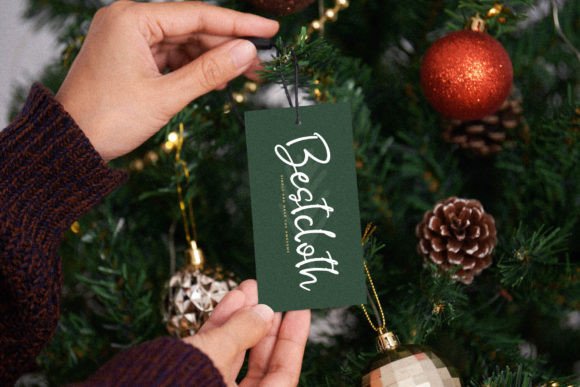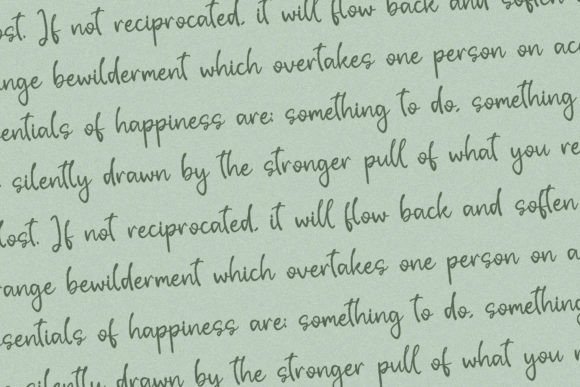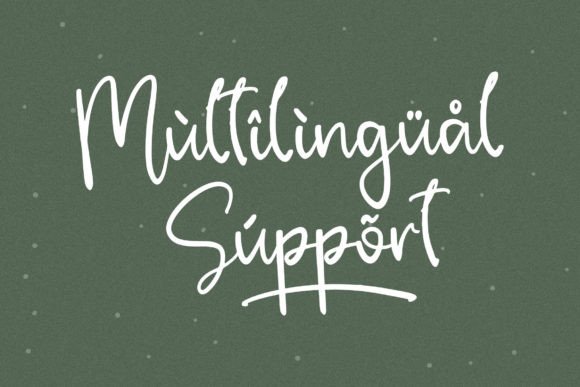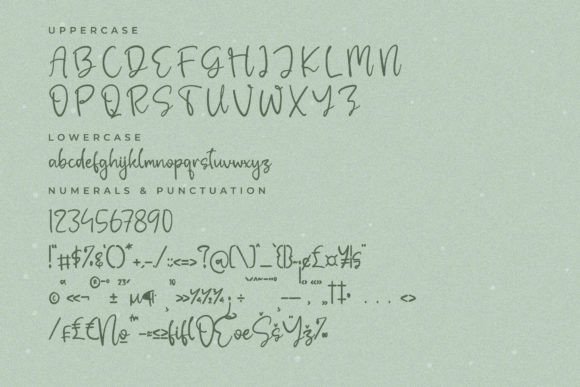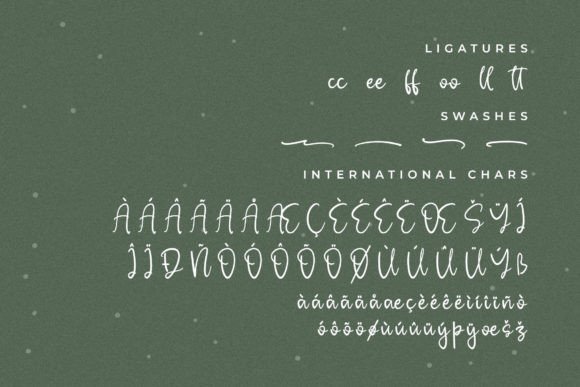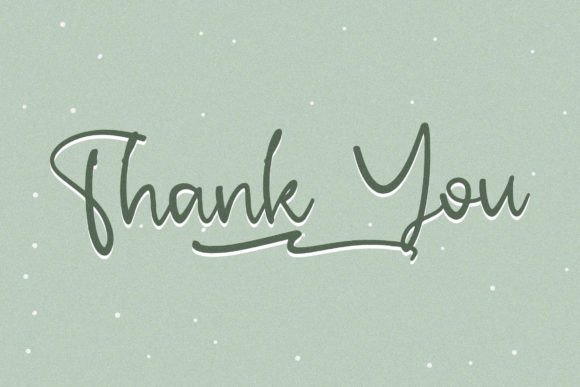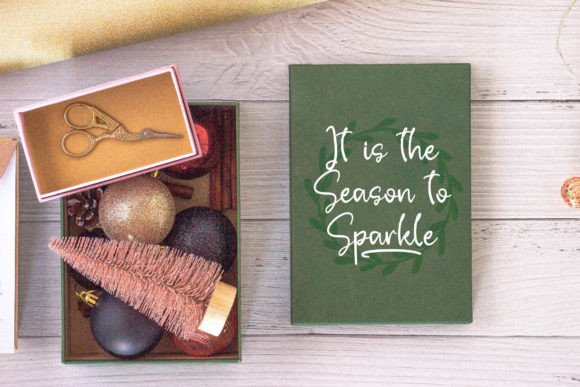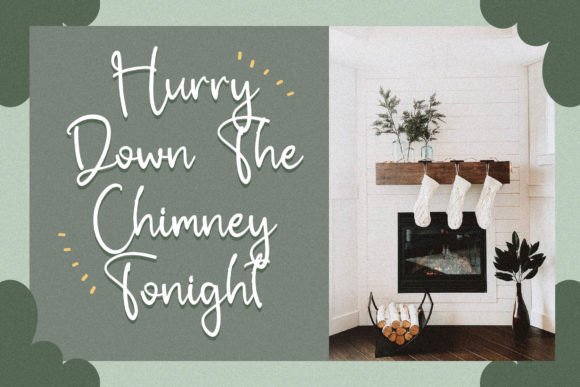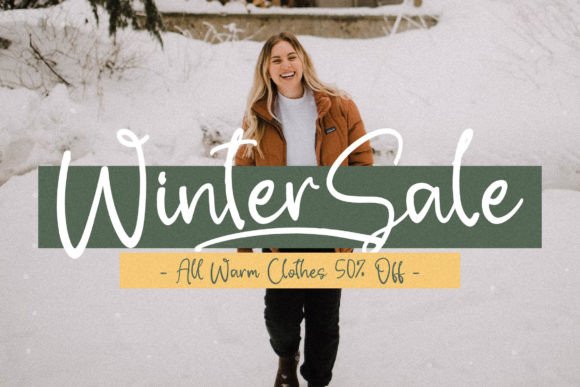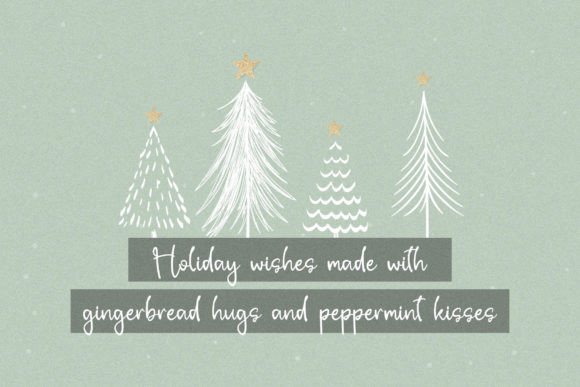
Whitfield Font
About Whitfield Font
The Whitfield Font Download is an elegant handwritten script designed to bring style, personality, and sophistication to your creative projects. With its graceful strokes and fluid curves, Whitfield captures the natural beauty of handwriting while maintaining professional polish.
Created with versatility in mind, this font adapts seamlessly to a wide range of design needs. Whether you’re working on branding, invitations, product packaging, apparel, or event promotions, Whitfield adds a touch of handwritten charm that elevates your work. Its timeless script design ensures your typography always feels stylish, approachable, and memorable.
Features of Whitfield Font
• Elegant handwritten script style with smooth, flowing strokes
• Full character set including uppercase, lowercase, numerals, and punctuation
• Balanced letterforms for consistent and professional results
• High readability across print and digital applications
• Versatile design that fits both casual and formal projects
Best Uses for Whitfield Font
• Logos and branding – Build timeless brand identities with a handwritten touch
• Wedding invitations and stationery – Add elegance and charm to your big day
• Product packaging and labels – Perfect for handmade goods, cosmetics, and lifestyle products
• Apparel and merchandise – Stylish typography for t-shirts, tote bags, and accessories
• Posters and flyers – Eye-catching headlines for events and promotions
• Social media graphics – Enhance Instagram posts, Pinterest pins, or blog visuals
• Book covers and magazines – Elegant titles for creative publications
• Photography watermarks – Professional handwritten accents for creatives
Why Choose Whitfield Font
The Whitfield Font Download stands out for its balance of elegance and usability. Unlike fonts that are overly ornate or too simplistic, Whitfield provides just the right mix of style and clarity. Its flowing script makes it versatile for professional branding while retaining the warmth of personal handwriting.
Designers love Whitfield for its timeless charm and adaptability. From formal wedding stationery to modern fashion branding, it brings sophistication to every context. Its graceful strokes ensure that your designs remain elegant without losing readability, making it a dependable choice for creative professionals.
The Whitfield Font Download is a refined handwritten script that blends elegance, charm, and versatility. With its smooth strokes and wide usability, it’s the perfect choice for logos, invitations, packaging, apparel, social media graphics, and more.